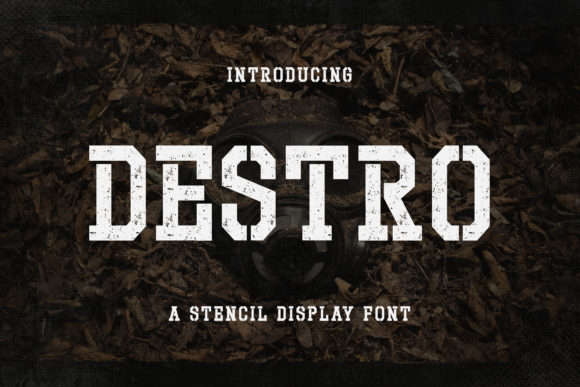
Introducing Destro Font: The Ultimate Retro-Styled Display Font
Are you tired of using the same old fonts for your creative projects? Look no further than Destro Font, a cool, bold, and retro-styled display font that’s sure to take your designs to the next level. In this article, we’ll dive into the features and benefits of Destro Font, and explore how it can elevate your typography game.
What is Destro Font?
Destro Font is a modern display font that’s inspired by the classic typography of the past. Its bold and retro style makes it perfect for creating eye-catching headlines, titles, and logos that demand attention. The font comes with a range of features that make it easy to use and customize, including PUA (Private Use Area) encoding.
PUA encoding means that you can access all of the glyphs and swashes with ease, giving you complete creative control over your typography. With Destro Font, you can add a touch of nostalgia to your designs while still maintaining a modern and edgy feel.
Benefits of Using Destro Font
- Unique and eye-catching design: Destro Font is unlike any other font on the market. Its bold and retro style makes it perfect for creating designs that stand out from the crowd.
- Easily customizable: With PUA encoding, you can access all of the glyphs and swashes with ease, making it simple to customize your typography to suit your needs.
- Perfect for display text: Destro Font is designed specifically for display text, making it perfect for headlines, titles, and logos.
- Supports multiple languages: Destro Font supports multiple languages, making it a great choice for designers working on international projects.
Use Cases for Destro Font
- Logos and branding: Destro Font is perfect for creating bold and eye-catching logos that make a statement.
- Headlines and titles: Use Destro Font to create attention-grabbing headlines and titles that draw readers in.
- Posters and flyers: Destro Font is a great choice for creating bold and eye-catching posters and flyers.
- Social media graphics: Use Destro Font to create engaging social media graphics that stand out from the crowd.
Pairing Destro Font with Other Fonts
- Montserrat: Pair Destro Font with Montserrat for a modern and sleek look.
- Open Sans: Combine Destro Font with Open Sans for a clean and elegant look.
- Lato: Pair Destro Font with Lato for a bold and modern look.
Tips for Using Destro Font
- Experiment with different sizes: Destro Font looks great in a variety of sizes, so don’t be afraid to experiment and find the perfect size for your project.
- Play with color: Destro Font comes in a range of colors, so try out different colors to see what works best for your design.
- Use it sparingly: While Destro Font is a stunning font, it can be overwhelming if used too much. Use it sparingly to create emphasis and draw attention to specific parts of your design.
In conclusion, Destro Font is a cool, bold, and retro-styled display font that’s perfect for creative projects that demand attention. With its PUA encoding and range of glyphs and swashes, it’s easy to customize and use in a variety of contexts. Whether you’re creating logos, headlines, or social media graphics, Destro Font is a great choice. So why not give it a try and see the amazing results for yourself?